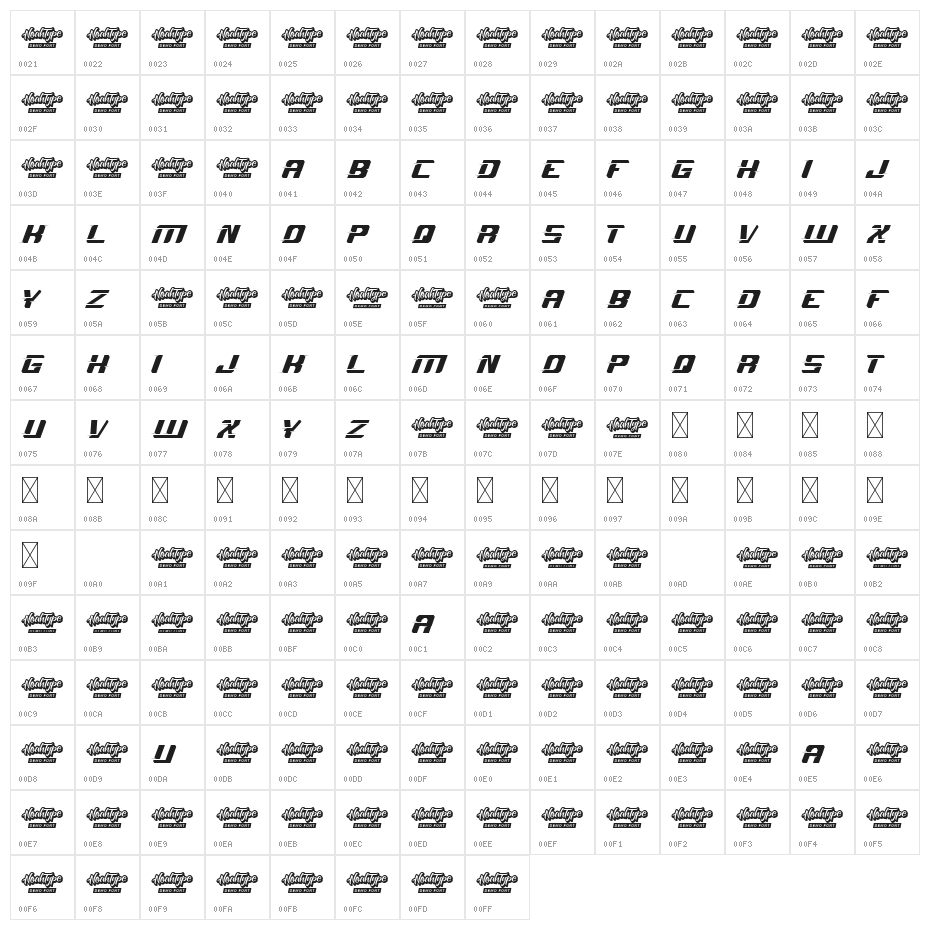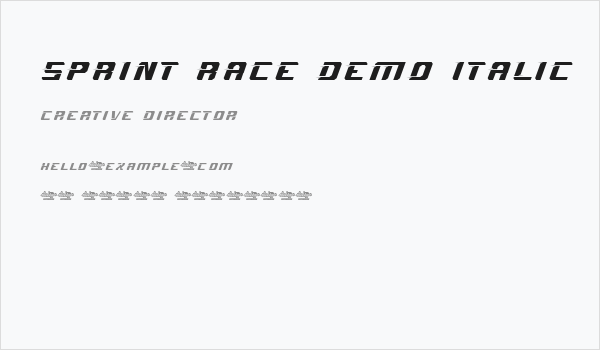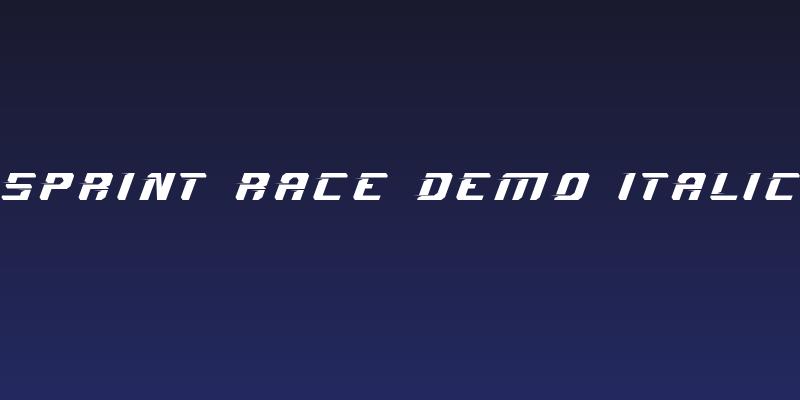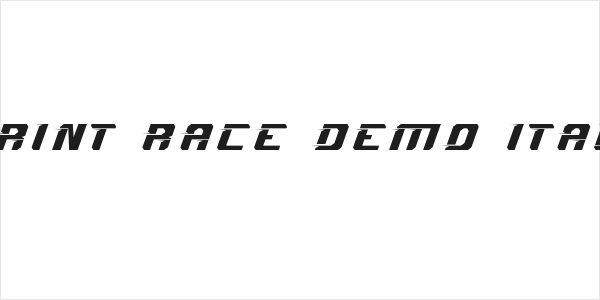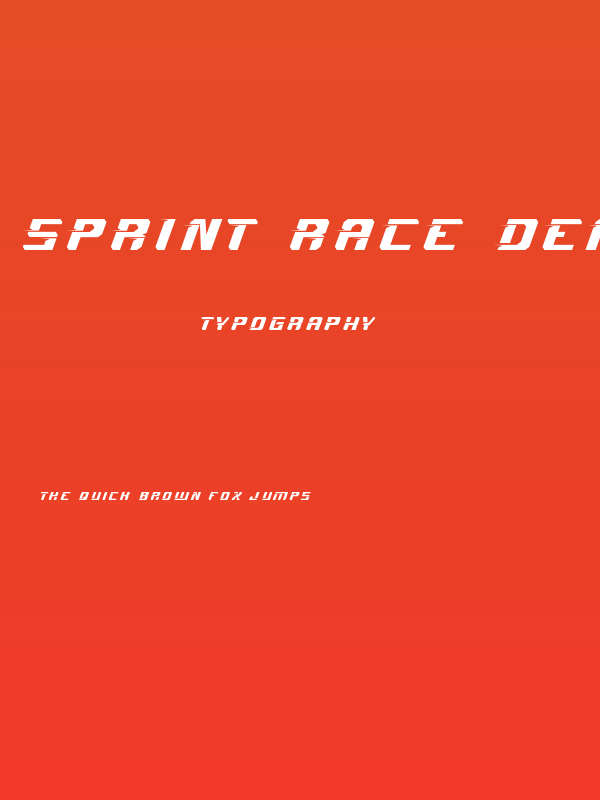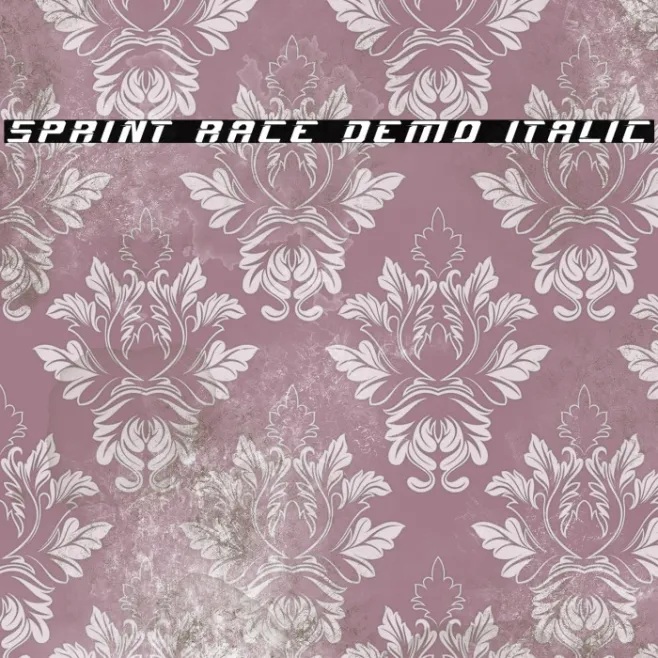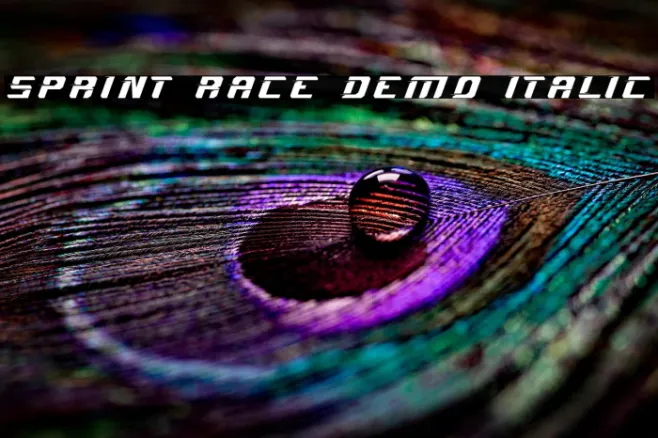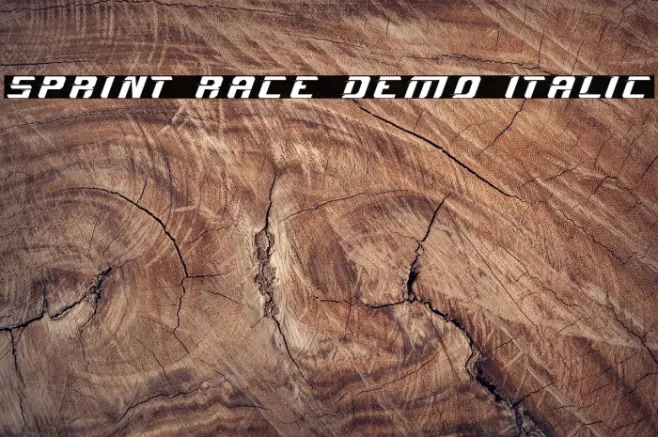
Sprint Race Demo Italic Font
Sprint Race Demo Italic Description
This font exhibits a dynamic and energetic style, characterized by its italicized and angular letterforms. The design features sharp edges and a forward-leaning posture, evoking a sense of speed and motion. The characters are bold and impactful, with a futuristic aesthetic that is enhanced by the slanted orientation. The uppercase letters are particularly striking, with a consistent geometric structure that maintains readability while adding a unique flair. This font is ideal for projects that require a modern and edgy look, such as sports branding, automotive designs, or tech-related materials.